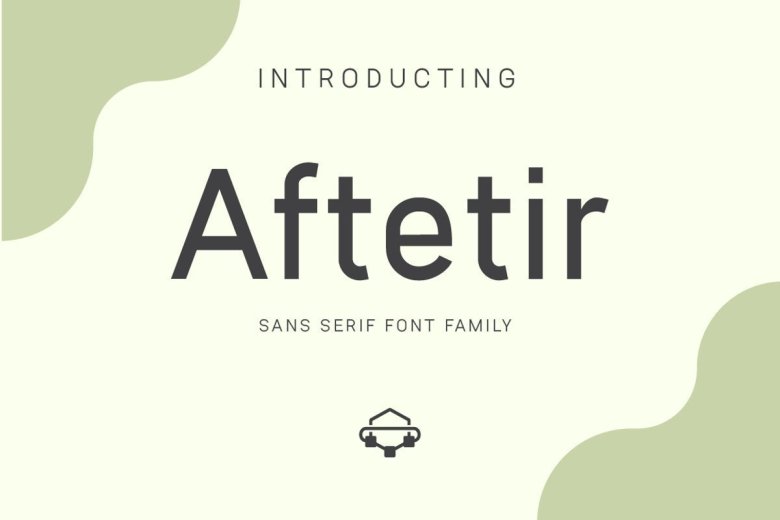
Aftetir Font
Aftetir Basic Sans Font is a simple sans serif font. This type of font perfectly made to be applied especially in headlines which is need a standout font, and the other various formal forms. Masterfully designed to become a true favorite, this font has the potential to bring each of your creative ideas to the highest level!